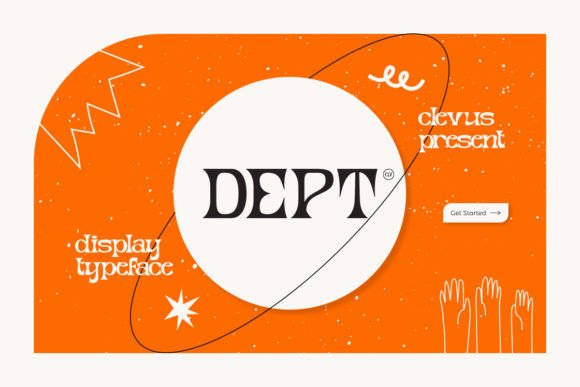
Embark on a typographical journey with Dept Font, a display font family that exudes boldness, modernity, and a touch of cinematic flair. Crafted by the skilled hands of Clevus, Dept Font is your gateway to creating designs that captivate, inspire, and leave a lasting impression.
Indulge in the font's dynamic personality, where sharp edges and smooth curves intertwine to form a visually striking aesthetic. Its strong presence commands attention, making it the perfect choice for branding and advertising projects that demand impact and effectiveness.
Immerse yourself in the world of Dept Font, where creativity knows no bounds. Whether you're designing logos, posters, or eye-catching social media graphics, this font family is your versatile companion. Its ability to effortlessly blend with various design styles makes it a must-have in your typographic arsenal.
With Dept Font, you're not just downloading a font; you're unlocking a treasure trove of creative possibilities. Its versatility allows you to craft designs that resonate with your audience, leaving them mesmerized and eager to engage with your content.
Let Dept Font be your creative ally, propelling your designs to new heights. Its cinematic charm adds a touch of drama and intrigue, making it the perfect choice for projects that demand an emotional connection.
Don't settle for ordinary fonts; embrace the extraordinary with Dept Font. Its bold and modern aesthetic will transform your designs into captivating masterpieces, leaving an indelible mark on the minds of your audience.